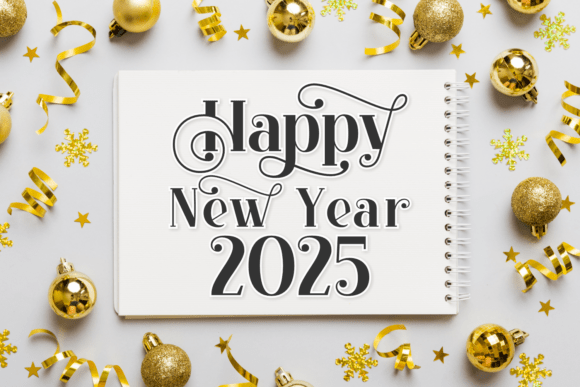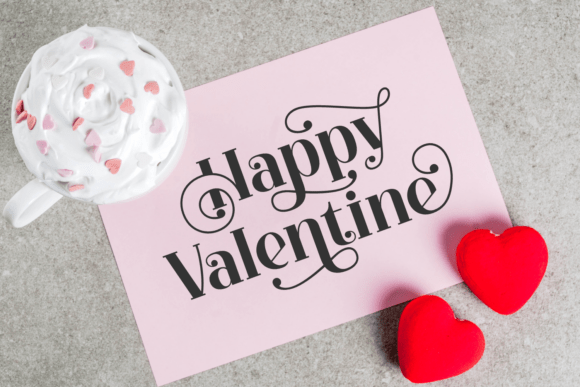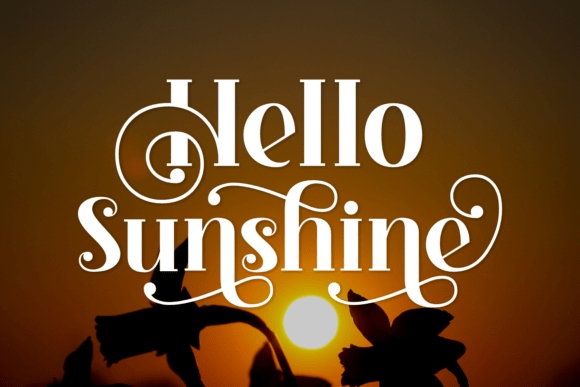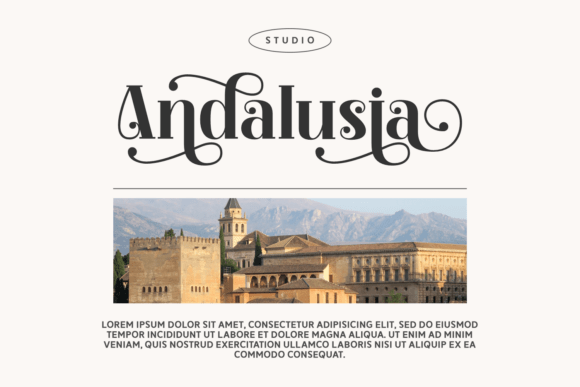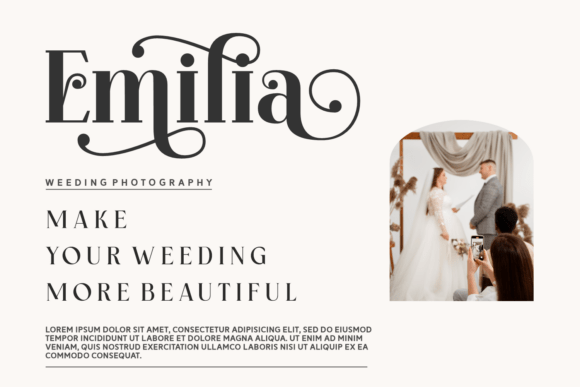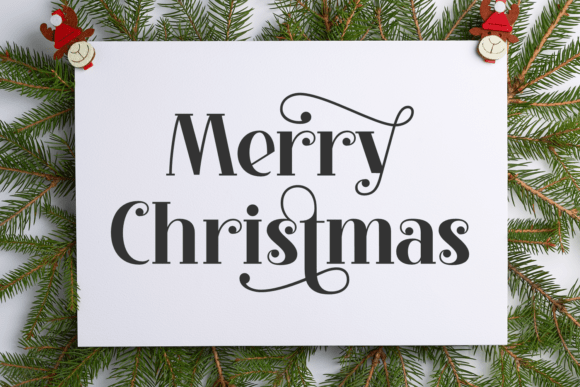
Introducing Hastanya: The Ultimate Serif Font for Festive and Elegant Designs
As the year comes to a close and the festive season approaches, designers and crafters are on the lookout for the perfect typography to make their creations shine. Look no further than Hastanya, a fresh and authentic Serif font that embodies the spirit of New Year and the warmth of Christmas. This stunning typeface is ideal for a wide range of design projects, from wedding and Valentine’s Day themes to Christmas greetings and beyond.
A Font that Radiates Effortless Smoothness
Hastanya’s unique twist on traditional Serif fonts makes it stand out from the crowd. Its clean aesthetic and effortless smoothness make it perfect for a variety of design applications, including typography over vibrant backgrounds. Whether you’re creating a happy Valentine’s Day message adorned with hearts or a merry Christmas note, Hastanya is sure to make your messages truly stand out.
One of the standout features of Hastanya is its versatility. This exceptional swashes font comes with full support for multiple languages, making it an excellent choice for Eastern European languages. The font is also accented, adding an extra layer of authenticity to your designs. Whether you’re creating branding materials, product packaging, invitations, labels, or posters, Hastanya is the perfect fit.
Beyond Holiday Greetings
While Hastanya is perfect for holiday greetings, its uses don’t stop there. This typeface is equally convincing in books, on magazine covers, t-shirts, and greeting cards. Its clean aesthetic and elegant design make it an excellent choice for a wide range of branding needs. Whether you’re a designer, crafter, or business owner, Hastanya is sure to become a go-to font in your collection.
Design Possibilities are Endless
With Hastanya, the design possibilities are endless. Imagine creating striking product packaging that stands out on store shelves, or designing beautiful wedding invitations that set the tone for a special day. This font is perfect for:
• Holiday greetings: Christmas, New Year, Valentine’s Day, and more
• Wedding and love themes: invitations, decorations, and more
• Branding efforts: logos, product packaging, and more
• Magazine covers: add a touch of elegance to your publication
• T-shirts and apparel: create unique and stylish designs
• Greeting cards: make your cards truly special with Hastanya
Why Choose Hastanya?
So why choose Hastanya over other fonts? Here are just a few reasons:
• Unique and authentic design
• Effortless smoothness and clean aesthetic
• Full support for multiple languages
• Accented for added authenticity
• Versatile and adaptable to a wide range of design needs
Experience the Allure of Hastanya
In conclusion, Hastanya is an exceptional Serif font that is sure to become a favorite among designers and crafters. Its unique design, versatility, and elegance make it perfect for a wide range of design projects. Whether you’re creating holiday greetings, branding materials, or simply looking for a beautiful font to add to your collection, Hastanya is the perfect choice. Experience the allure of Hastanya today and take your designs to the next level!